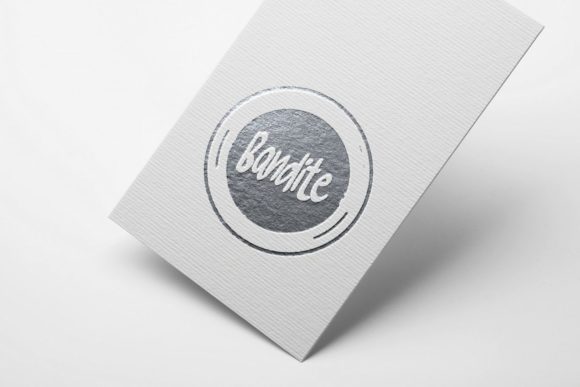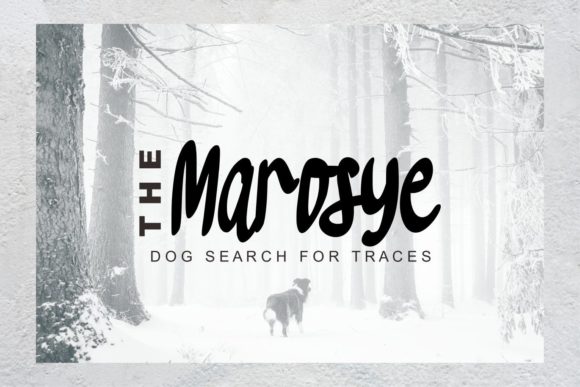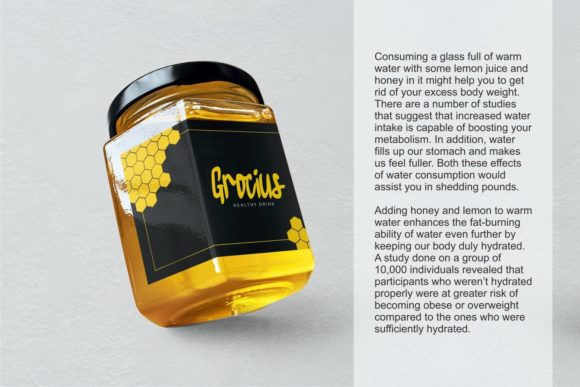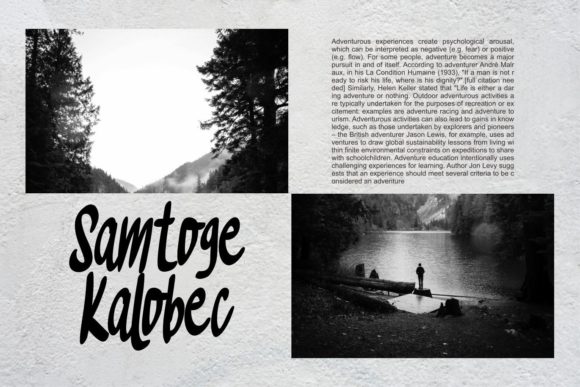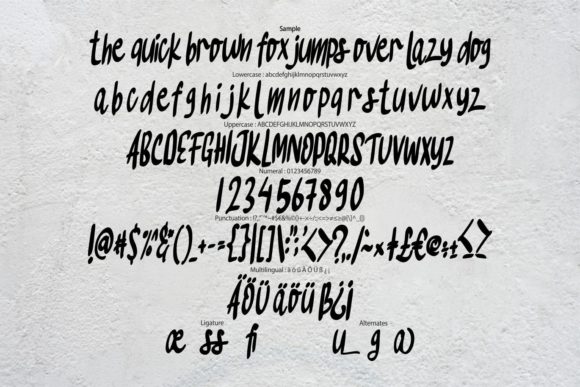
Introducing Evinsone Font: The Ultimate Vintage-Styled Handwritten Font
Are you a designer or crafter looking for a unique and personalized font to elevate your designs? Look no further than Evinsone Font, a cool, vintage-styled, and paint-brushed handwritten font that’s perfect for a variety of creative projects. In this article, we’ll dive into the features and benefits of Evinsone Font, and explore how it can add a touch of elegance and sophistication to your designs.
What is Evinsone Font?
Evinsone Font is a beautifully crafted handwritten font that exudes a sense of nostalgia and charm. With its vintage style and paint-brushed texture, it’s perfect for designers and crafters who want to add a personal touch to their work. Whether you’re creating wedding invitations, thank you cards, greeting cards, logos, or any other design that requires a unique and personalized style, Evinsone Font is an excellent choice.
Key Features of Evinsone Font
- Vintage Style: Evinsone Font boasts a classic, vintage look that’s reminiscent of traditional handwritten scripts.
- Paint-Brushed Texture: The font features a beautiful paint-brushed texture that adds a touch of elegance and sophistication to your designs.
- Handwritten Style: Evinsone Font is a handwritten font that’s perfect for creating personalized and unique designs.
- Versatile: This font is suitable for a wide range of design projects, including wedding invitations, greeting cards, logos, and more.
Benefits of Using Evinsone Font
So, why choose Evinsone Font for your design projects? Here are just a few benefits of using this amazing font:
- Adds a Personal Touch: Evinsone Font’s handwritten style and paint-brushed texture add a personal touch to your designs, making them stand out from the crowd.
- Easy to Read: Despite its vintage style, Evinsone Font is easy to read and understand, making it perfect for body text and headings.
- Customizable: You can customize Evinsone Font to fit your design needs, making it a versatile choice for a wide range of projects.
- Unique and Creative: With Evinsone Font, you can create unique and creative designs that reflect your personal style and brand.
Design Ideas Using Evinsone Font
Evinsone Font is a versatile font that can be used for a wide range of design projects. Here are some design ideas to get you started:
- Wedding Invitations: Use Evinsone Font to create beautiful and elegant wedding invitations that set the tone for your special day.
- Greeting Cards: Create personalized greeting cards for birthdays, holidays, and other special occasions using Evinsone Font.
- Logos: Use Evinsone Font to create a unique and memorable logo for your business or brand.
- Thank You Cards: Express your gratitude with beautifully designed thank you cards featuring Evinsone Font.
In conclusion, Evinsone Font is a unique and versatile font that’s perfect for designers and crafters looking to add a personal touch to their designs. With its vintage style, paint-brushed texture, and handwritten style, it’s suitable for a wide range of design projects, from wedding invitations to logos. Whether you’re looking to create elegant and sophisticated designs or playful and creative ones, Evinsone Font is an excellent choice.